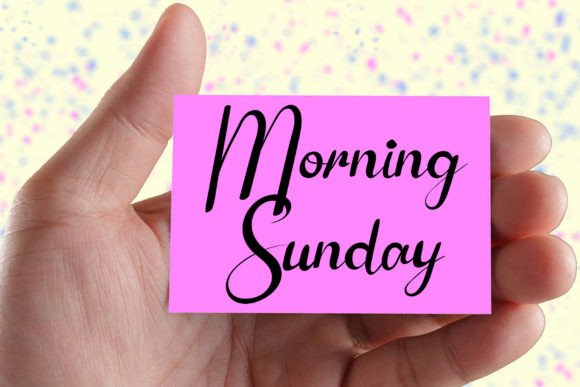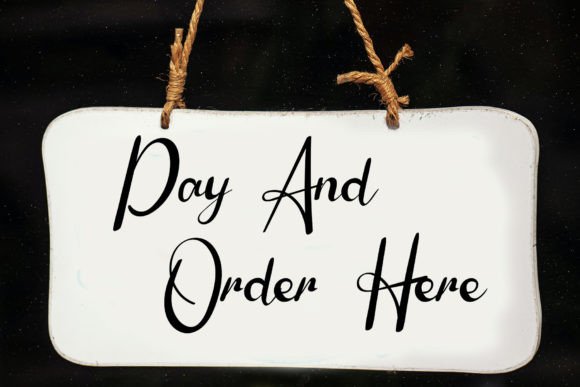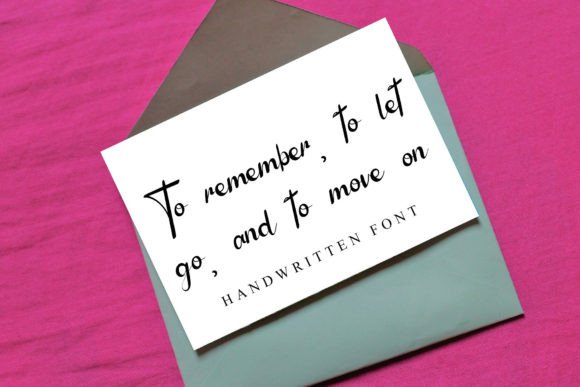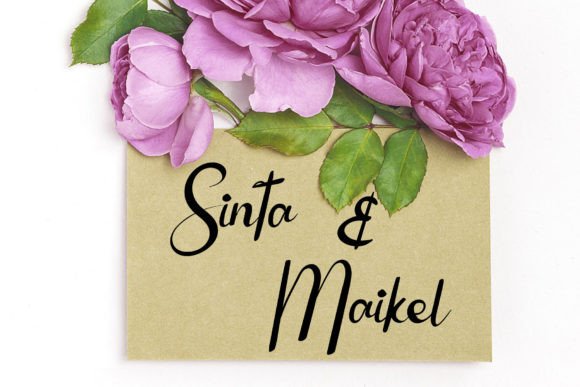
Camping Font: Elevate Your Designs with a Touch of Whimsy and Elegance
Are you a designer or crafter looking for a unique and refined typeface to add a personal touch to your creations? Look no further than Camping Font, a distinctive and elegant font that can effortlessly transform ordinary designs into something extraordinary. With its delightful charm and handcrafted feel, Camping Font is perfect for a wide range of applications, from wedding invites and greeting cards to billboards, logos, and corporate business cards.
The Distinctive Allure of Camping Font
So, what sets Camping Font apart from other typefaces? The answer lies in its fluid baseline, meticulously crafted to achieve an authentic hand-made feel. This unique characteristic gives Camping Font a whimsical charm that is sure to capture the attention of your audience. Whether you’re designing a wedding invitation or a logo, Camping Font’s distinct allure will add a touch of elegance and sophistication to your work.
Camping Font is a versatile typeface that can be used in a variety of contexts. Here are some ideas to get you started:
- Wedding Invites: Add a touch of romance and whimsy to your wedding invitations with Camping Font. Its elegant and refined feel makes it perfect for formal and informal wedding announcements.
- Greeting Cards: Create personalized and heartfelt greeting cards for special occasions like birthdays, anniversaries, and holidays.
- Billboards and Logos: Use Camping Font to create eye-catching billboards and logos that will stand out from the crowd.
- Corporate Business Cards: Add a touch of personality to your corporate business cards with Camping Font’s handcrafted feel.
- Glyphs: A range of characters and symbols that can be used to add a personal touch to your designs.
- Swashes: Decorative elements that can be used to add a touch of elegance and sophistication to your designs.
Why Choose Camping Font?
So, why should you choose Camping Font for your next design project? Here are just a few reasons:
- Unique and Refined: Camping Font is a distinctive and elegant typeface that will set your designs apart from the crowd.
- Handcrafted Feel: The font’s fluid baseline and authentic hand-made feel give it a personal touch that is sure to capture the attention of your audience.
- Versatile: Camping Font can be used in a wide range of applications, from wedding invites and greeting cards to billboards and logos.
In conclusion, Camping Font is a distinctive and refined typeface that is perfect for designers and crafters looking to add a touch of whimsy and elegance to their creations. With its fluid baseline, authentic hand-made feel, and PUA encoding, Camping Font is a versatile and easily accessible font that can be used in a wide range of applications. Whether you’re designing a wedding invitation or a logo, Camping Font is sure to elevate your designs and add a personal touch that will capture the attention of your audience.